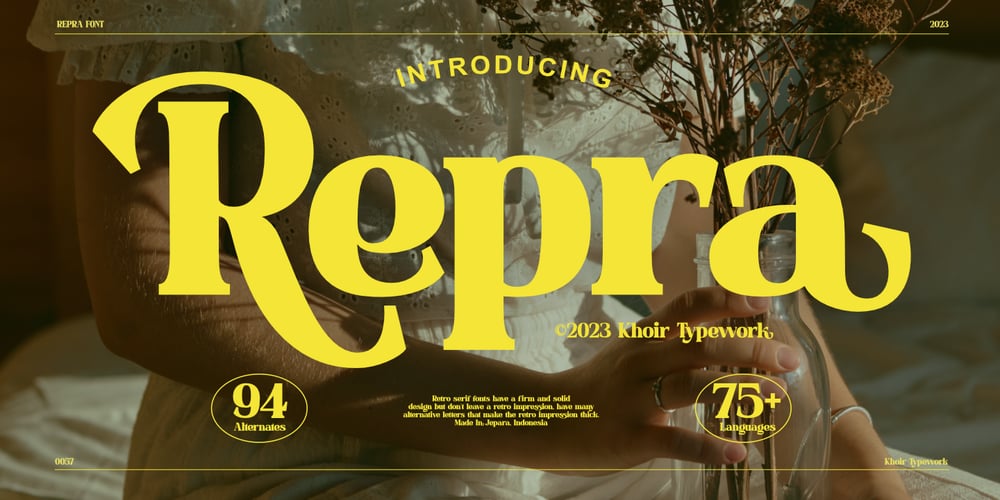
Repra
Repra font
Repra Font Family was designed by Muhammad Romzul Khoir and published by Khoir. Repra contains 1 styles and family package options. The Repra font creates a vintage feel by adding alternative glyphs that create a retro style, ideal for those of you who want to bring a retro style to your work, with unique alternative glyphs that are perfect for posters, packaging projects, flayers or branding with a retro feel. Repra Uppercase Lowercase 75+ Language Alternate & Ligature So what are you waiting for? immediately purchase this font, feel free to comment, or send me my PM. Thank you for seeing